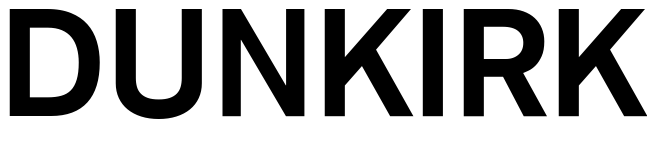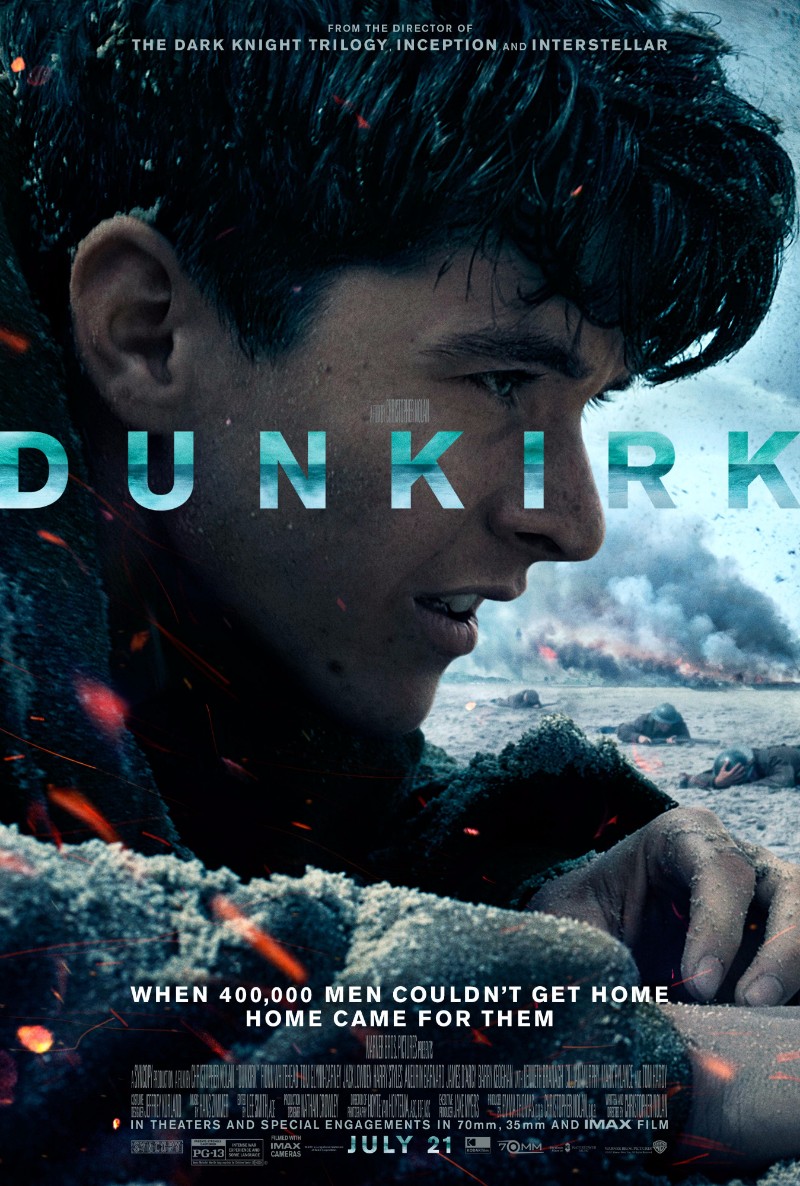
Dunkirk (film) Font
Fonts in UseDunkirk is a 2017 war film directed by Christopher Nolan, portraying the evacuation of Allied soldiers from the beaches of Dunkirk during World War II with a nonlinear narrative, intense atmosphere, and minimal dialogue.
The movie poster for "Dunkirk" features the font Akzidenz Grotesk Bold, a sans serif typeface known for its grotesque style, initially created by the Berthold Type Foundry of Berlin.